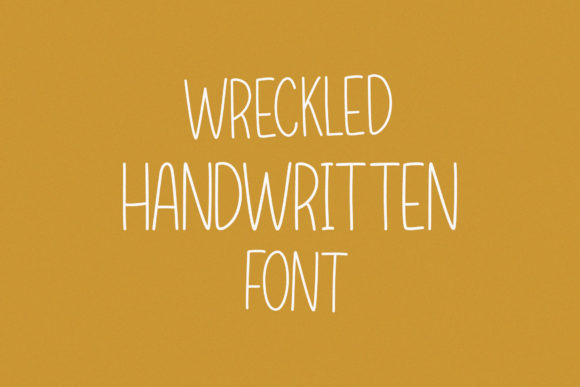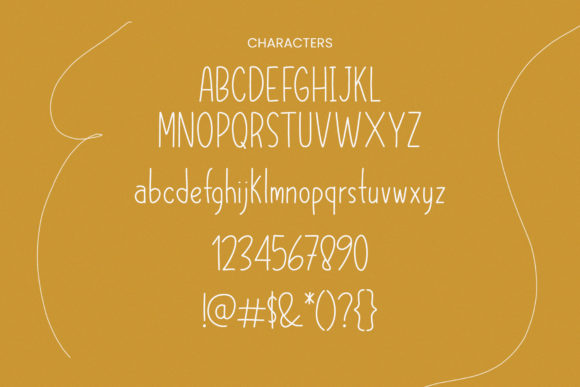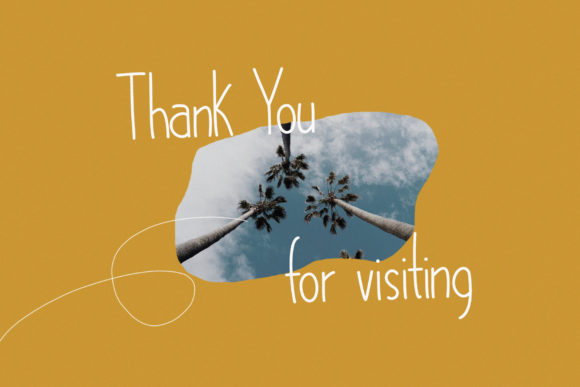
About Wreckled Font
Introducing Wreckled, a dazzling handwritten font. It’s perfect for branding, product packaging, invitations, quotes, t-shirts, labels, posters, or any logo you want to develop. Make all your design projects more attractive, and take your designs to the next level with Wreckled.